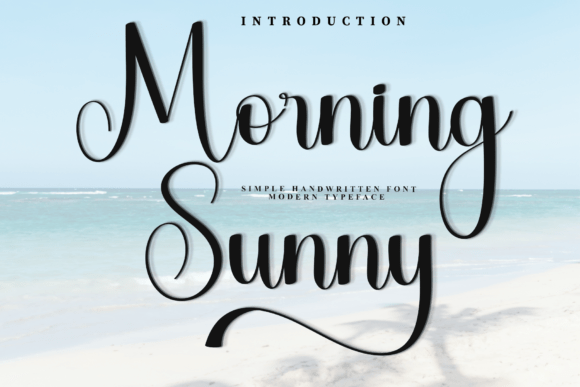
Morning Sunny Font: Elevate Your Designs with a Unique and Eye-Catching Typeface
In the world of typography, a font can make or break a design. A well-chosen font can elevate your creative project, making it more engaging and memorable. If you’re on the hunt for a beautiful and distinctive font to take your designs to the next level, look no further than Morning Sunny Font. In this article, we’ll explore the features, benefits, and uses of Morning Sunny Font, and why it’s an excellent choice for designers, artists, and creatives.
What is Morning Sunny Font?
Morning Sunny Font is a stunning typeface designed with a soft, unique touch. Its distinctive strokes give it a special character, making it both meaningful and versatile. This font is perfect for a wide range of design projects, crafts, and creative works. With its various characters, Morning Sunny Font offers endless possibilities for designers and artists looking to add a personal touch to their work.
One of the standout features of Morning Sunny Font is its natural and effortless style. The font’s soft curves and rounded edges give it a friendly and approachable feel, making it perfect for designs that require a touch of warmth and personality. Whether you’re working on a branding project, a website design, or a craft, Morning Sunny Font is sure to make your work stand out.
Key Features of Morning Sunny Font
- Unique and Eye-Catching Design: Morning Sunny Font boasts a distinctive and stylish design that sets it apart from other fonts.
- Soft and Natural Style: The font’s soft curves and rounded edges give it a friendly and approachable feel.
- Versatile and Meaningful: Morning Sunny Font is perfect for a wide range of design projects, crafts, and creative works.
- Endless Possibilities: With its various characters, Morning Sunny Font offers endless possibilities for designers and artists.
Benefits of Using Morning Sunny Font
So, why choose Morning Sunny Font for your design projects? Here are just a few benefits of using this beautiful font:
- Enhance Your Designs: Morning Sunny Font will elevate your designs, making them more appealing to a wide range of audiences.
- Stand Out from the Crowd: With its unique and eye-catching design, Morning Sunny Font will help your designs stand out from the competition.
- Perfect for Creative Projects: The font is ideal for a wide range of creative projects, including branding, website design, crafts, and more.
Use Cases for Morning Sunny Font
Morning Sunny Font is a versatile typeface that can be used in a variety of design projects. Here are just a few examples:
- Branding and Logo Design: Use Morning Sunny Font to create a unique and memorable logo for your brand.
- Website Design: Add a touch of personality to your website with Morning Sunny Font.
- Crafts and DIY Projects: Use Morning Sunny Font to add a personal touch to your crafts and DIY projects.
- Graphic Design: Morning Sunny Font is perfect for a wide range of graphic design projects, including brochures, flyers, and more.
Why Choose Morning Sunny Font?
With so many fonts available, why choose Morning Sunny Font? Here are just a few reasons:
- Unique Design: Morning Sunny Font boasts a unique and eye-catching design that sets it apart from other fonts.
- High-Quality: The font is designed with high-quality and precision, ensuring that it looks great in any design.
In conclusion, Morning Sunny Font is a beautiful and eye-catching typeface that is perfect for designers, artists, and creatives. With its unique and distinctive design, soft and natural style, and versatility, Morning Sunny Font is an excellent choice for a wide range of design projects. Whether you’re working on a branding project, a website design, or a craft, Morning Sunny Font is sure to elevate your designs and make them more appealing to a wide range of audiences.